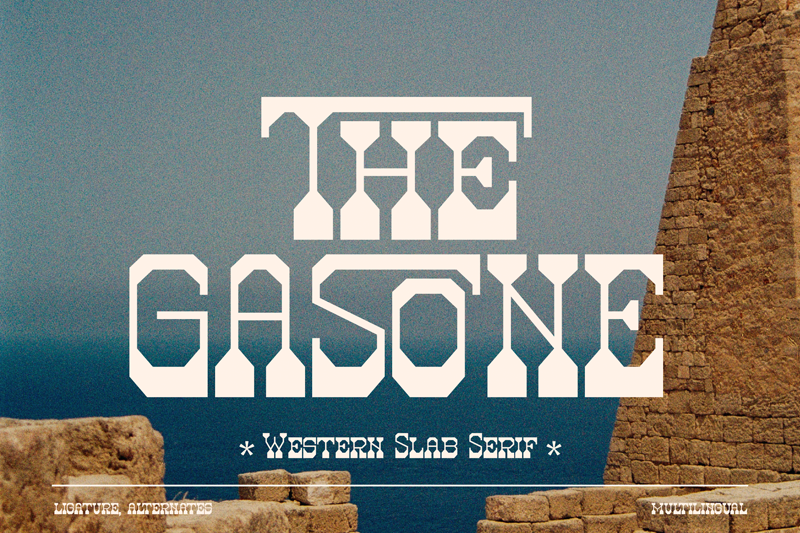
The Gasone
The Gasone | Western Slab Serif is suitable for any projects such as: logos, branding projects, homeware designs, product packaging, mugs, quotes, posters, shopping bags, t-shirts, book covers, name card, invitation cards, greeting cards, label, photography, watermark, special events, and all your other lovely projects that need a Western Slab Serif taste. By installing or using this font, you are agree to the Product Usage Agreement: – This demo font is ONLY for PERSONAL USE. NO COMMERCIAL USE ALLOWED! – Here is the link to purchase full version and commercial license: https://denustudios.com/the-gasone-western-slab-serif/ – For Corporate use you have to purchase Corporate license – If you need a custom license please contact us at https://denustudios.com/contact/ – Any donation are very appreciated. Paypal account for donation https://www.paypal.com/paypalme/denustudios Please visit our store for more amazing fonts : https://denustudios.com/ Thank you. =================================================== INDONESIA: Dengan meng-install font ini, dan membaca persyaratan ini, anda dianggap mengerti dan menyetujui semua syarat dan ketentuan penggunaan font dibawah ini: – Font demo ini hanya dapat digunakan untuk keperluan “Personal Use”/kebutuhan pribadi, atau untuk keperluan yang sifatnya tidak “komersil”, alias tidak menghasilkan profit atau keuntungan dari hasil memanfaatkan/menggunakan font kami. Baik itu untuk individu, Agensi Desain Grafis, Percetakan, Distro atau Perusahaan/Korporasi.